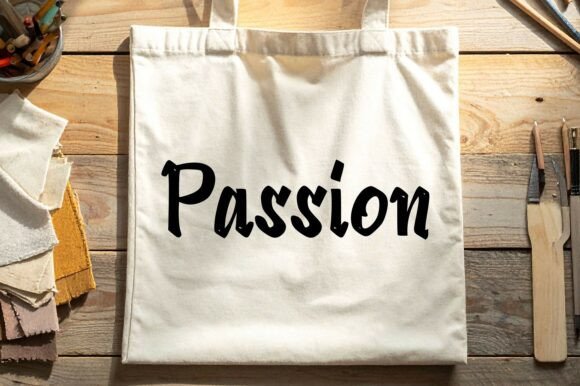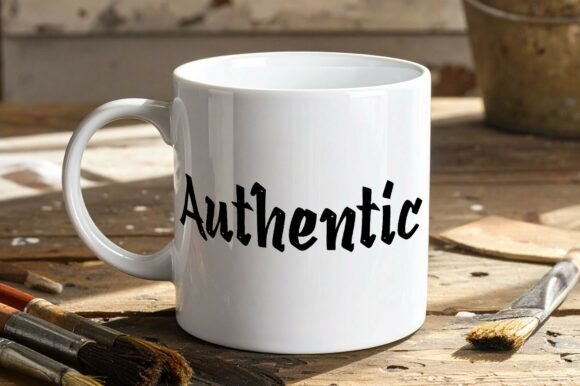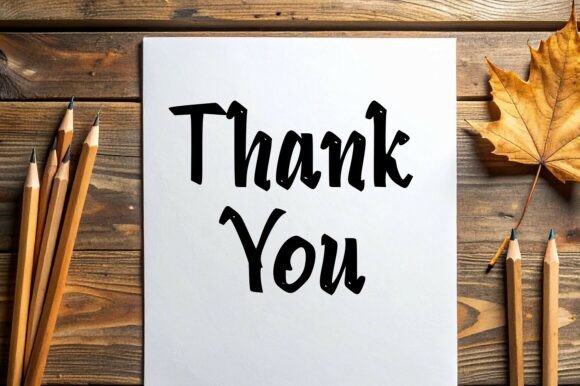
Introducing Cashya Font: Elevate Your Designs with a Touch of Humanity
In the world of typography, few fonts manage to capture the essence of human emotion and connection. Cashya Font is one such gem that stands out from the crowd, infusing your designs with a distinctive feminine allure and an endearing human touch. This hand-written-style font is a masterful blend of elegance and homeliness, making it a versatile choice for a wide range of creative projects.
The Art of Handwritten Typography
Cashya Font is a beautiful representation of handwritten typography, with its graceful, linking strokes and gentle, emotive curves. Each letter is meticulously crafted to evoke the beauty of heartfelt handwriting, making it perfect for designs that require a personal touch. Whether you’re creating romantic wedding invitations, distinct boutique branding, contemporary lifestyle blogs, or moving social media posts, Cashya Font is the ideal choice.
A Symphony of Art
What sets Cashya Font apart is its ability to transform run-of-the-mill text into a visual symphony of art. The font’s artfully fluid flow and welcoming personality make it a joy to work with, and its intrinsic appeal lies in its capacity to communicate genuine refinement. With Cashya, you can add a touch of sophistication and elegance to your designs, making them truly unforgettable.
Endless Avenues of Creativity
Cashya Font is more than just a beautiful font – it’s a comprehensive suite of numerics, capital, and lowercase letters that enable endless avenues of creativity. Whether you’re a designer, craft, or DIY enthusiast, Cashya provides the perfect foundation for your creative projects. Its full compatibility with popular design tools empowers graphic designers to push the boundaries of their imagination and create stunning visual content.
One of the most significant advantages of Cashya Font is its versatility. It can be used for a wide range of purposes, from:
- Romantic wedding invitations and stationery
- Distinct boutique branding and packaging
- Contemporary lifestyle blogs and magazines
- Moving social media posts and campaigns
- Handmade crafts and DIY projects
Why Choose Cashya Font?
So, why choose Cashya Font for your next creative project? Here are just a few reasons:
- Unique and distinctive: Cashya Font offers a fresh and unique perspective on handwritten typography, setting it apart from more traditional fonts.
- Elegant and refined: Cashya’s artfully fluid flow and gentle curves make it perfect for designs that require a touch of sophistication and elegance.
- Emotive and engaging: Cashya’s handwritten-style font evokes emotions and creates a connection with your audience, making your designs more engaging and memorable.
In conclusion, Cashya Font is a beautiful and versatile font that can elevate your designs to new heights. Its unique blend of elegance and homeliness makes it perfect for a wide range of creative projects, from romantic wedding invitations to distinct boutique branding. With its comprehensive suite of numerics, capital, and lowercase letters, Cashya provides endless avenues of creativity, empowering designers and crafters to push the boundaries of their imagination.